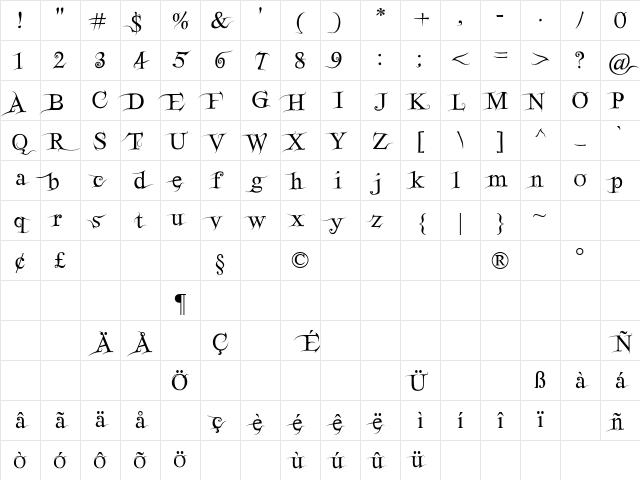
FairydustB Regular
Foundry: High-Logic
Designer: High-Logic - Erwin Denissen 1999
Design Context for FairydustB
FairydustB is a composed and adaptable typeface that performs quietly and consistently across a wide range of design contexts.